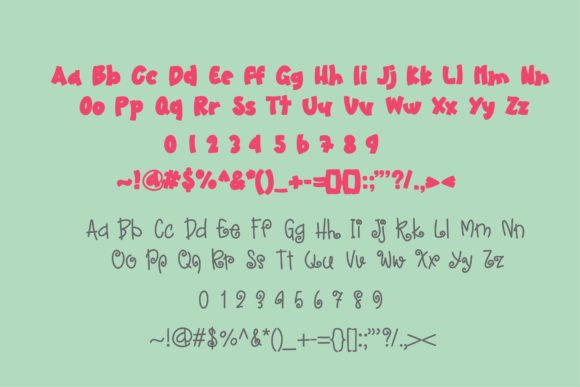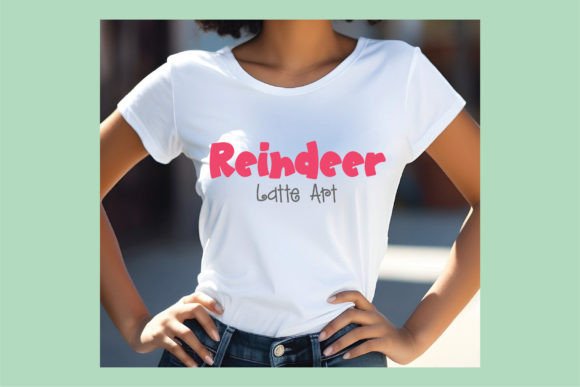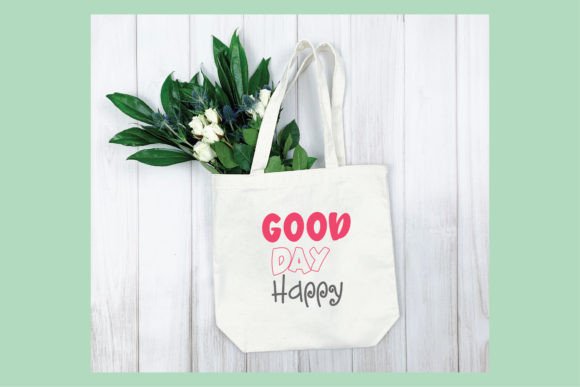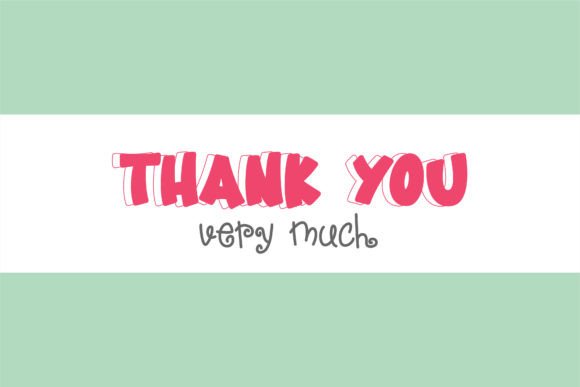
Introduction to Reindeer Latte Art Font
As you sit in front of your computer, staring at a blank canvas, you feel the creative itch that never seems to fade. You’re on the hunt for the perfect design element to bring your project to life. The right font can make all the difference, and that’s where the Reindeer Latte Art Font comes in. This delightful, handwritten font is a treasure trove of possibilities, waiting to be unleashed on your next creative project.
Whether you’re a seasoned designer or just starting out, the Reindeer Latte Art Font is an invaluable resource that’s sure to inspire. Its unique, natural style is the perfect addition to any design, and with a high-quality, transparent background, you can easily integrate it into your work. Plus, with a free download available, you can start experimenting with this fantastic font right away.
Key Features of Reindeer Latte Art Font
- High-quality design resource for creative projects, perfect for adding a festive touch.
- Includes a range of reindeer-inspired characters, from simple to complex, for added versatility.
- Unique and creative design makes it perfect for holiday-themed projects, such as greeting cards and advertisements.
Honest Review: Reindeer Latte Art Font
I recently stumbled upon the Reindeer Latte Art Font, and I must say it’s been a delightful addition to my design library. This free download has genuinely improved my creative project workflow.
What works well is the font’s high quality design, with beautiful, intricate details that evoke the magic of the holiday season. The transparent background option allows for seamless integration with any design, making it a versatile design resource.
Here are some of the font’s standout features:
- ✨ High-quality design with intricate details
- ✨ Transparent background option for easy integration
However, there are some limitations to consider: ⚠️ The font may not be suitable for projects requiring bold, sans-serif fonts, and ⚠️ the design may not translate well to smaller font sizes.
Overall, I’m thoroughly impressed with the Reindeer Latte Art Font. It’s a wonderful design resource that has added a touch of whimsy to my creative projects. If you’re looking for a high-quality, unique font to elevate your designs, this is definitely worth checking out.
Experiment with different font sizes, colors, and arrangements to achieve the desired look. Consider combining the Reindeer Latte Art Font with other design elements for a unique and eye-catching effect.
The Reindeer Latte Art Font is perfect for festive holiday projects, such as Christmas cards, gift tags, and social media graphics. It can also be used in other creative projects, like menus, posters, and advertisements, where a fun and playful design is required.